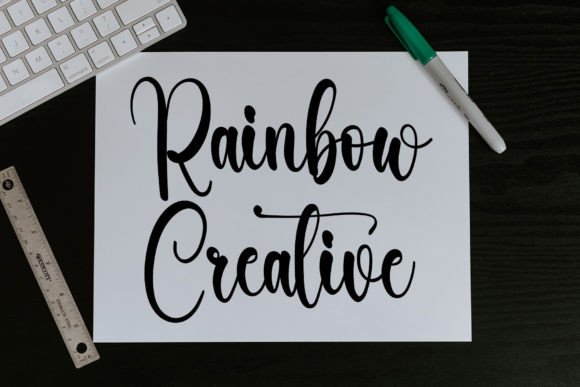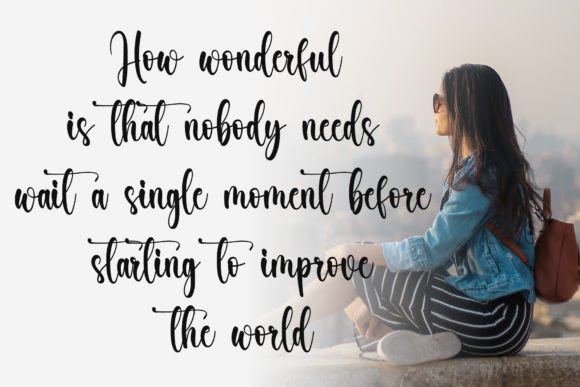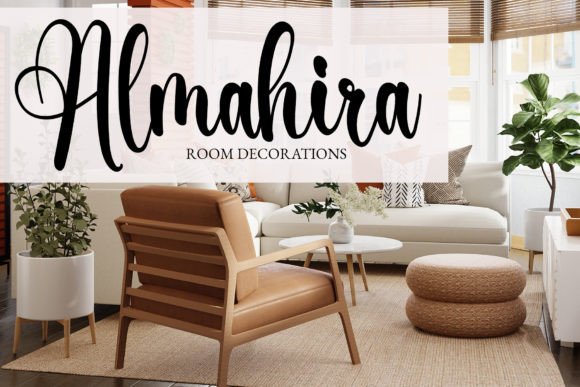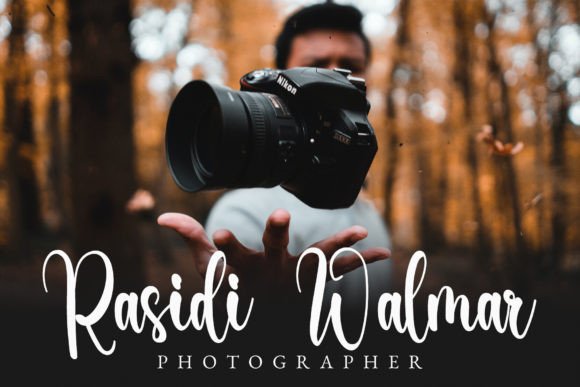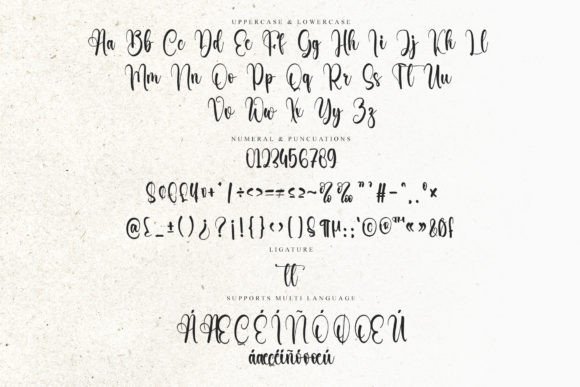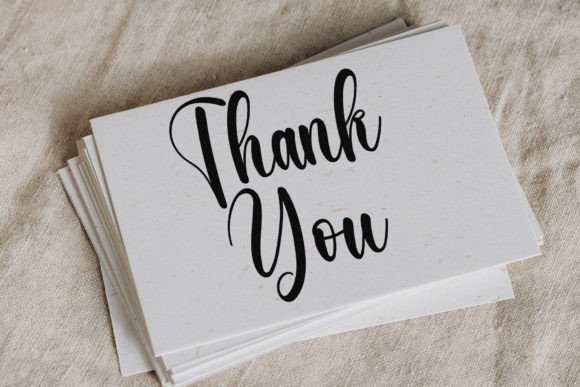
Bumbly Font: Add a Touch of Holiday Magic to Your Designs
The holiday season is upon us, and what better way to get into the spirit than with a festive and playful typeface? Look no further than the Bumbly Font, a whimsical font designed to add a touch of holiday magic to your Christmas cards, decorations, and more.
What is Bumbly Font?
Bumbly Font is a unique and enchanting typeface that is perfect for the holiday season. With its playful and festive design, it’s sure to bring a smile to anyone’s face. The font is adorned with enchanting swashes, adding an extra touch of magic to your designs.
Perfect for Christmas Cards and Decorations
Whether you’re a designer, crafter, or DIY enthusiast, Bumbly Font is the perfect addition to your holiday projects. Use it to create beautiful Christmas cards, decorations, and gift tags that are sure to impress. The font’s playful design makes it perfect for a variety of holiday-themed projects, from festive banners to merry mug designs.
So, what are the benefits of using Bumbly Font for designers and crafters? Here are just a few:
- Unique designs: Bumbly Font’s playful and festive design makes it perfect for creating unique and eye-catching holiday-themed projects.
- Time-saving: With a wide range of glyphs and ligatures at your fingertips, you can create beautiful designs in no time.
- Versatility: Bumbly Font can be used for a wide range of projects, from Christmas cards and decorations to gift tags and more.
Tips for Using Bumbly Font
Here are a few tips for using Bumbly Font in your designs:
- Experiment with different swashes: Bumbly Font comes with a range of enchanting swashes that can add an extra touch of magic to your designs.
- Mix and match glyphs: Don’t be afraid to mix and match different glyphs and ligatures to create unique and eye-catching designs.
- Use it for headlines and titles: Bumbly Font’s playful design makes it perfect for headlines and titles, adding a touch of holiday magic to your designs.
In conclusion, Bumbly Font is a festive and playful typeface that’s perfect for adding a touch of holiday magic to your Christmas cards, decorations, and more. With its PUA encoding and wide range of glyphs and ligatures, it’s easy to use and perfect for designers and crafters of all levels. So why not give it a try and spread the joy of the season with this whimsical font?